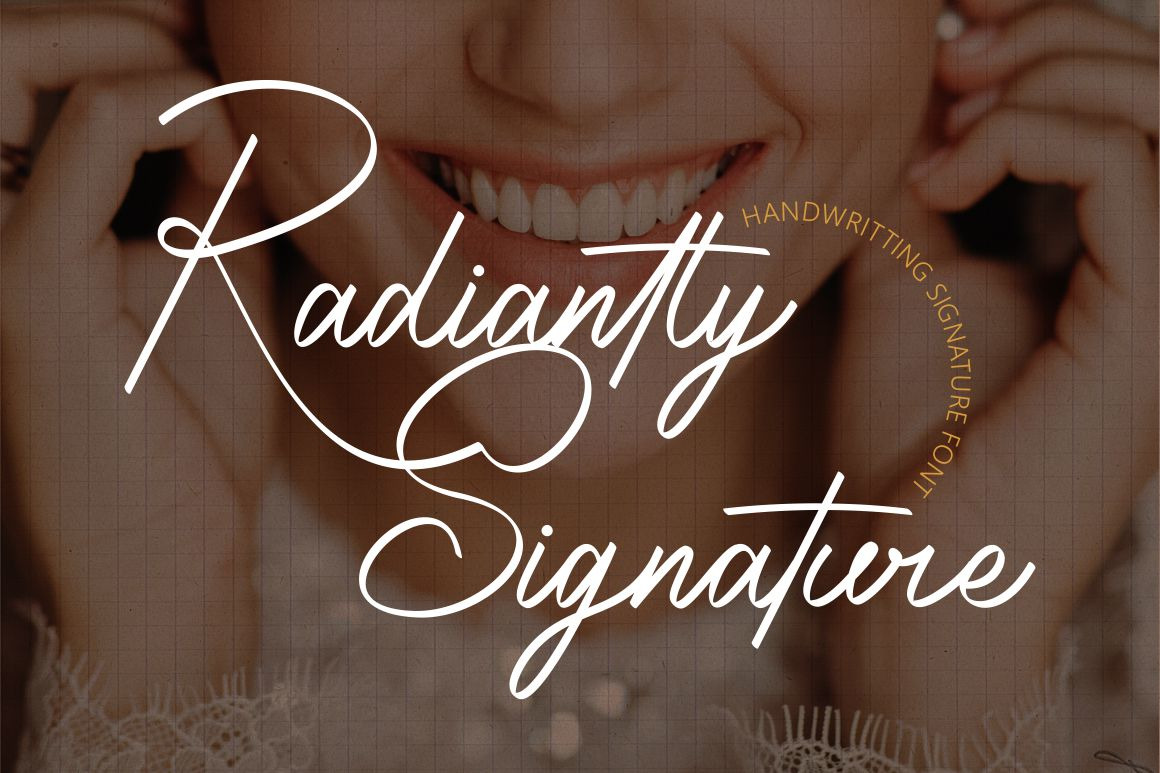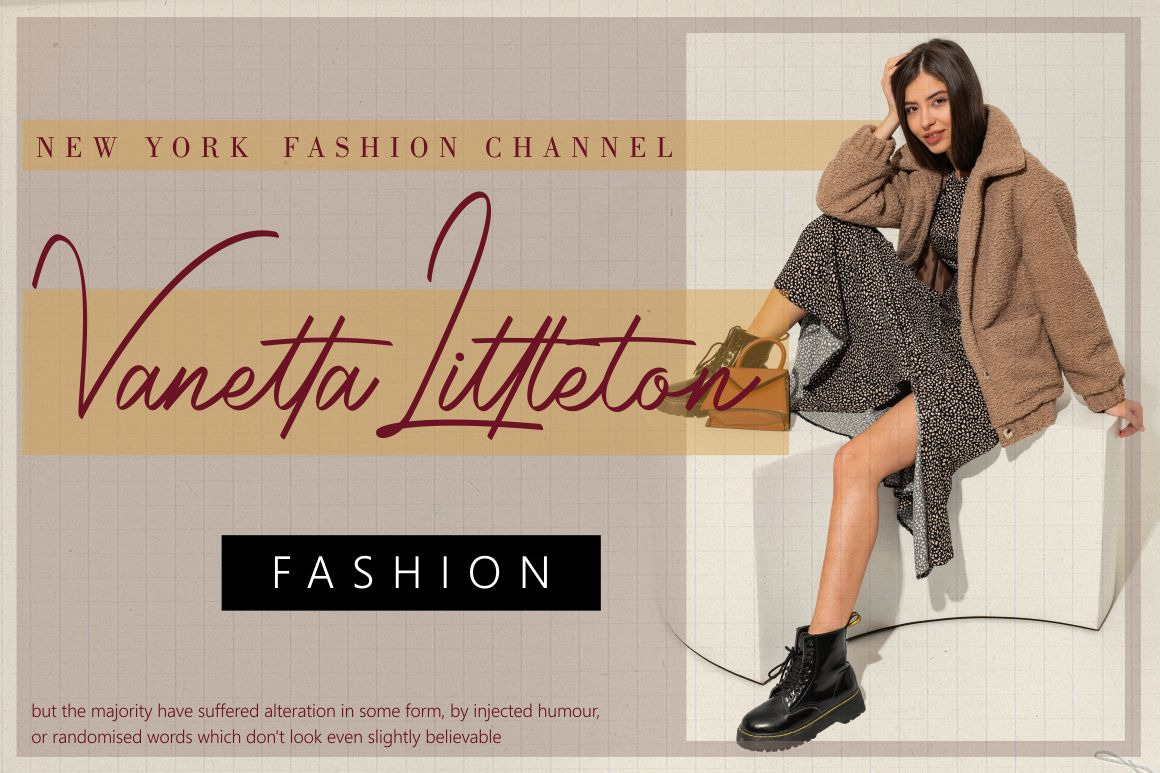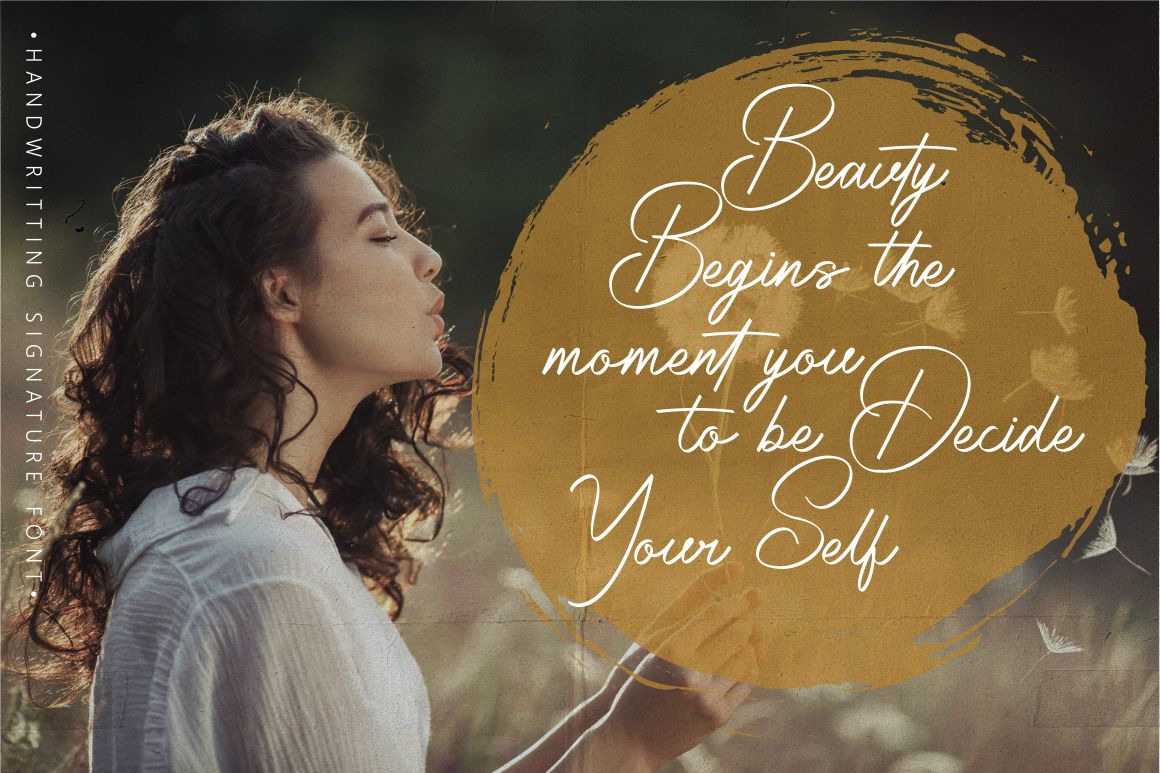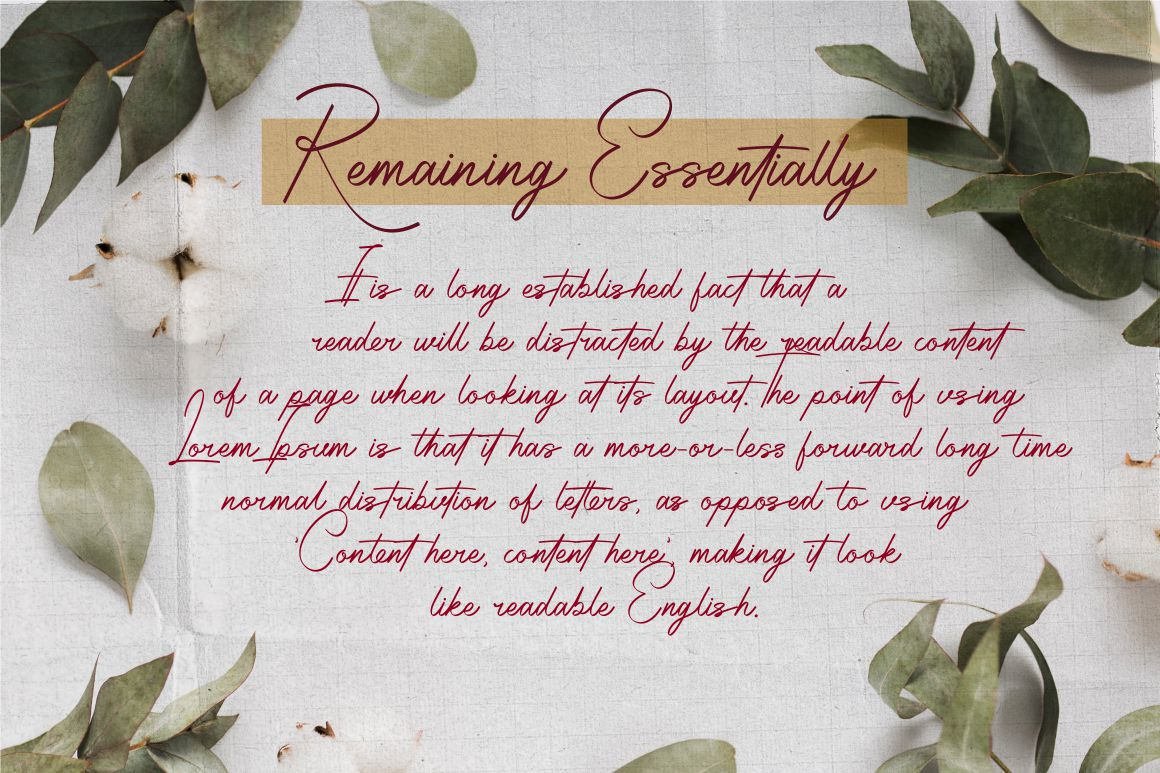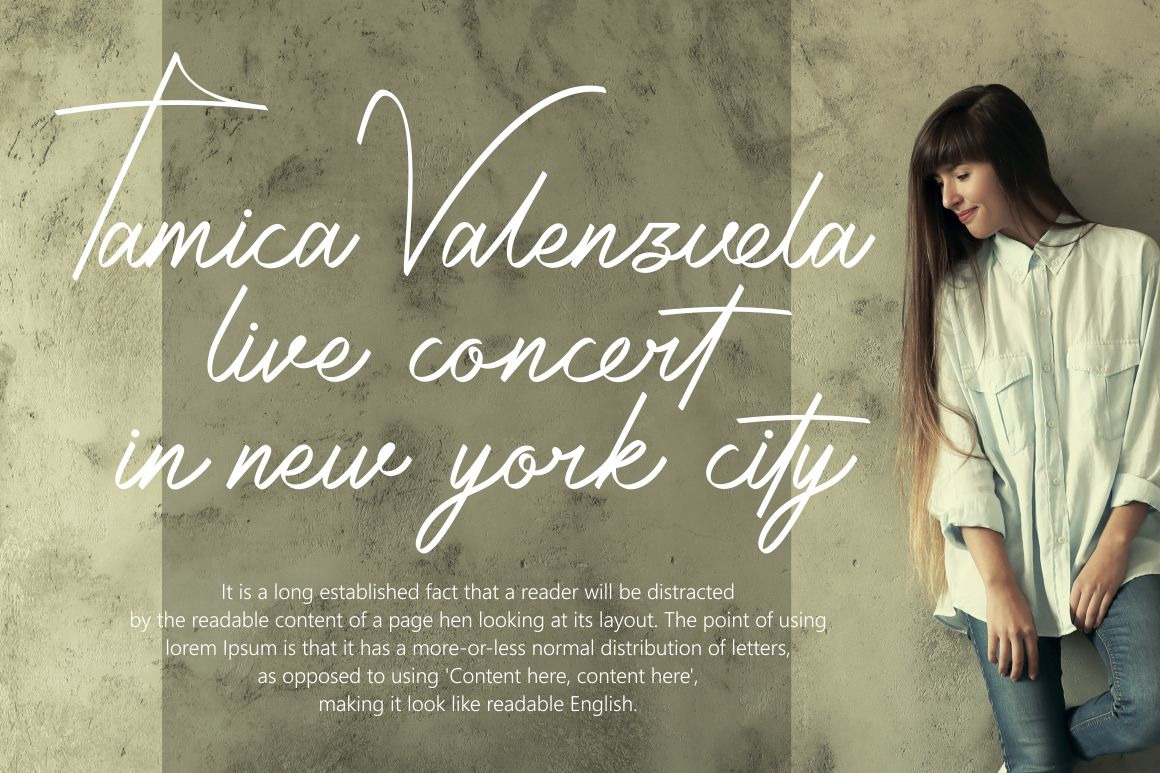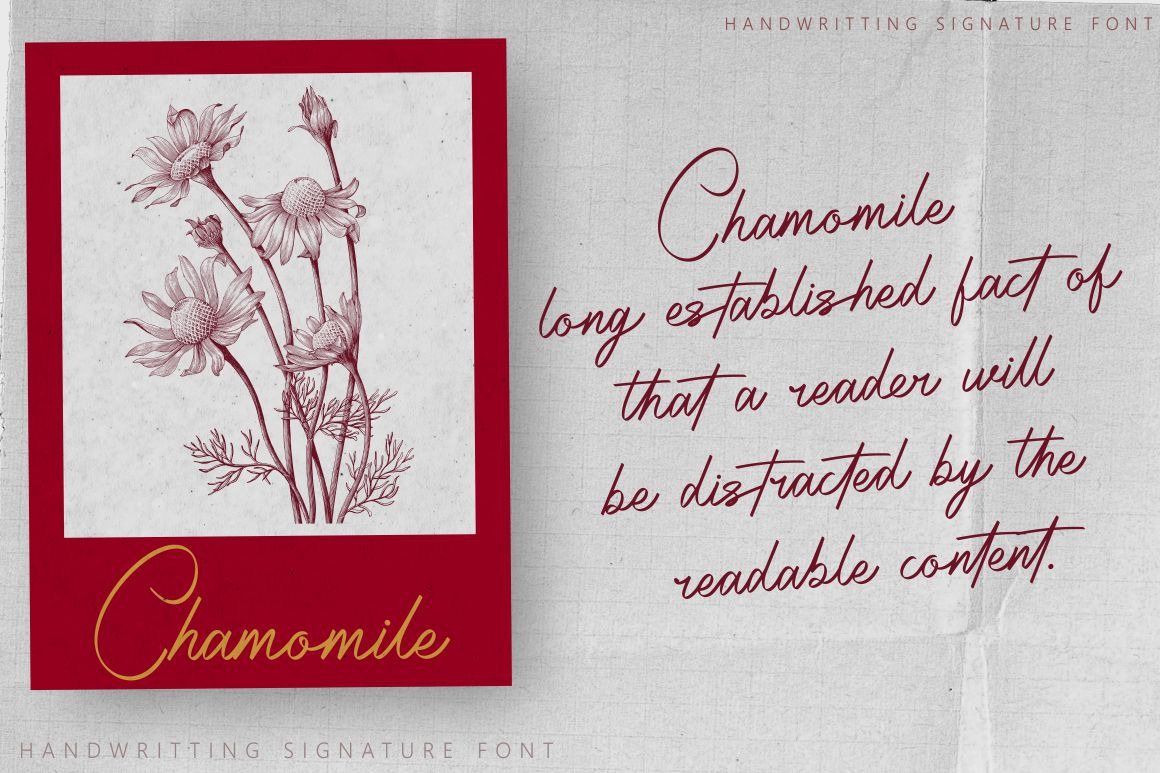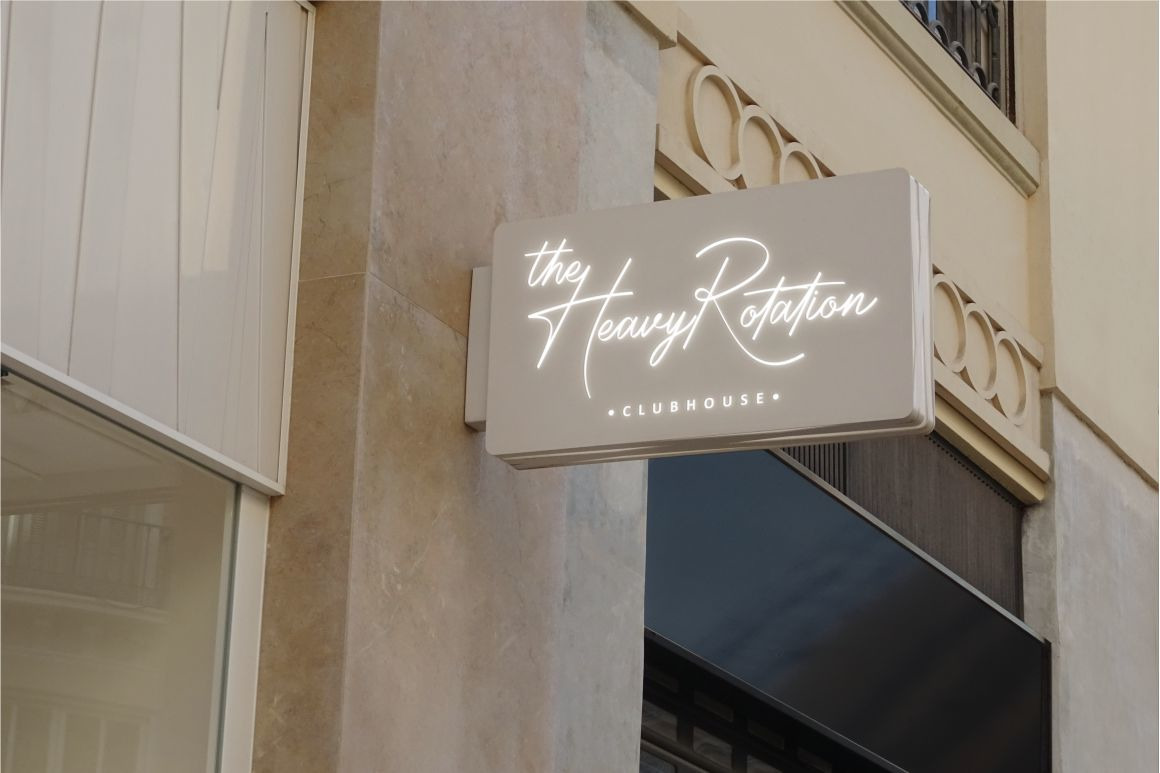
Radiantly Signature - Handwriting Signature Font
Radiantly Signature is a handwritten signature font with elegant and modern style. This font is a beautiful combination of natural, elegance and luxury. This font is very similar to handwriting using a pen so you'll get natural lettering when using it for your projects.
Radiantly Signature best uses for signature, heading, cover, branding, invitation, label, poster, logos, quotes, product packaging, header, merchandise, social media & greeting cards and many more.
- Ligature
- Number, Punctuation And Symbols